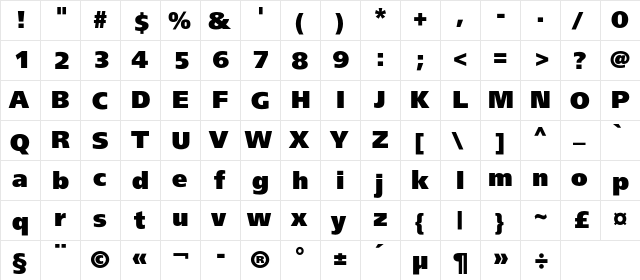
FreeSetBlackC Regular
Design Context for FreeSetBlackC Typeface
FreeSetBlackC is a composed and adaptable typeface that performs quietly and consistently across a wide range of design contexts.
Pro Tip: Use FreeSetBlackC in both headline and body roles to test its range before committing to a single application.